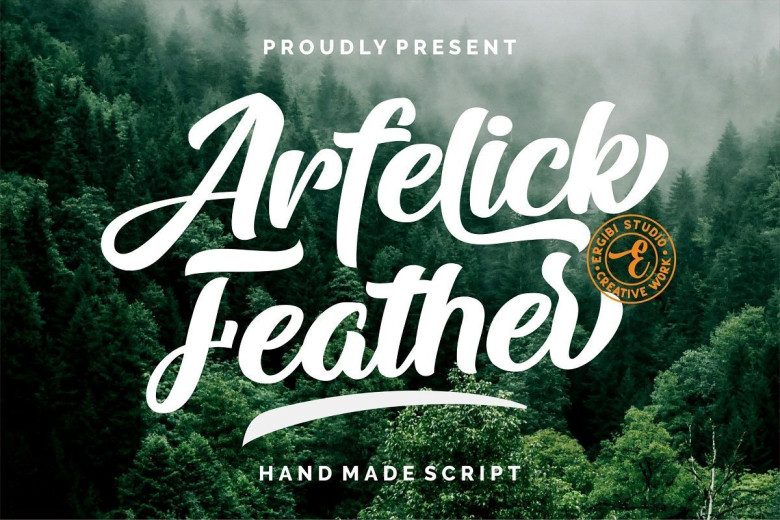
Arfelick Feather Handmade Bold Script Font
Proudly Present Arfelick Feather Handmade Script Font, This Fonts Comes is a bold connected script font with a clear style and dramatic movement. Every single letters have been carefully crafted to make your designs looks better. inspired by urban script fonts with beautiful letters that create fonts that are modern, tendy and elegant.
Arfelick Feather came with open type features such stylistic alternates, stylistic sets & ligatures good for logotype, poster, badge, book cover, t shirt design, packaging and any more. This font is free for PERSONAL USE. Link to purchase full version and commercial license: HERE